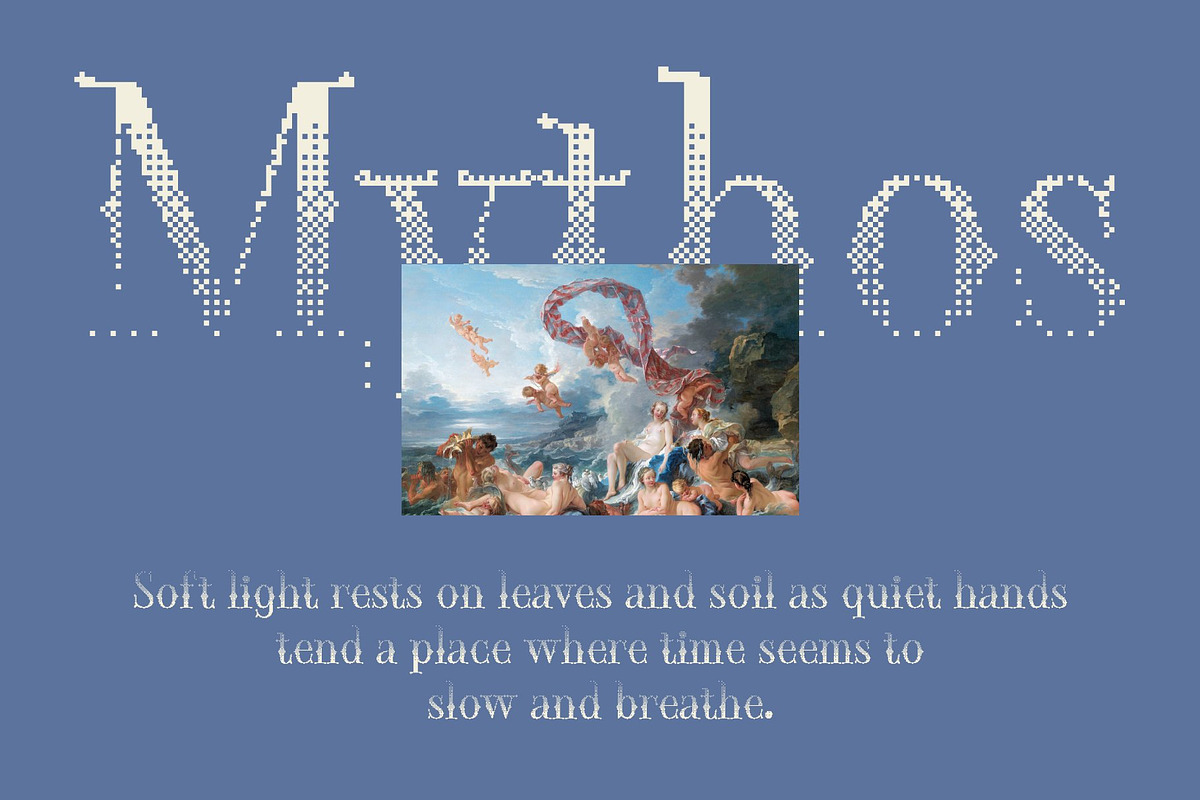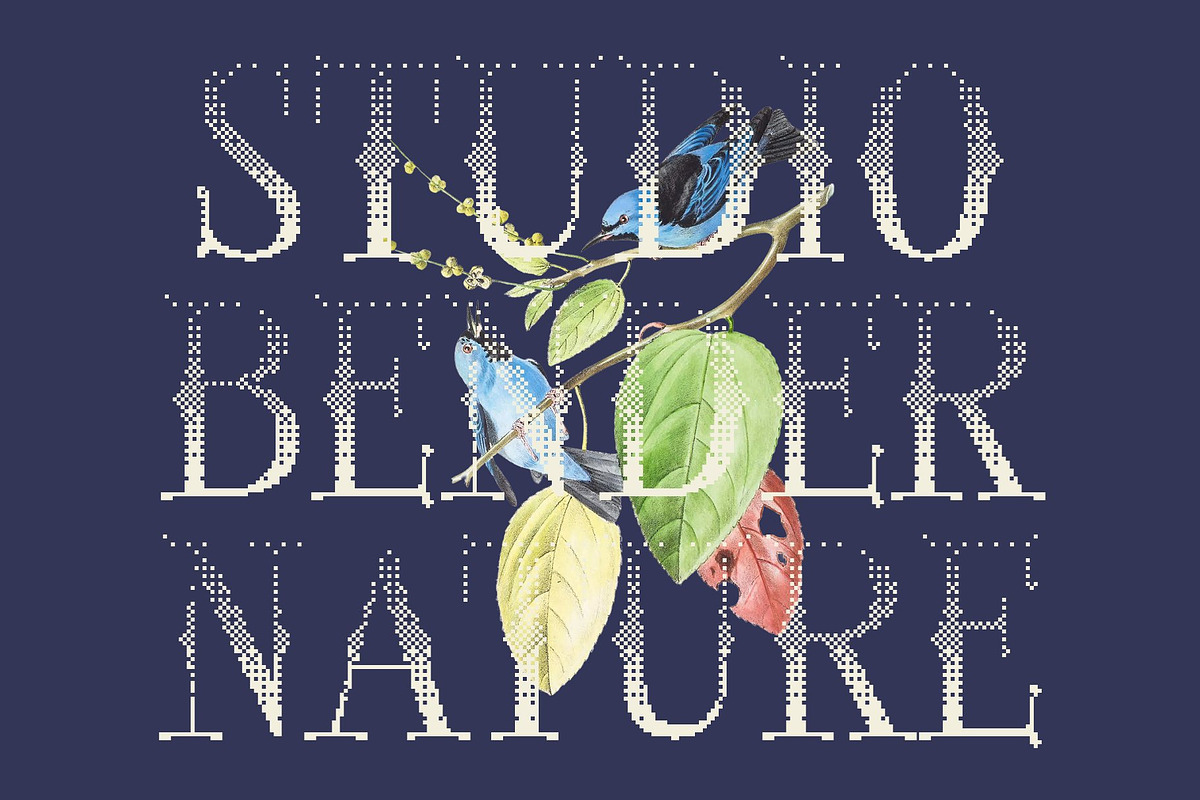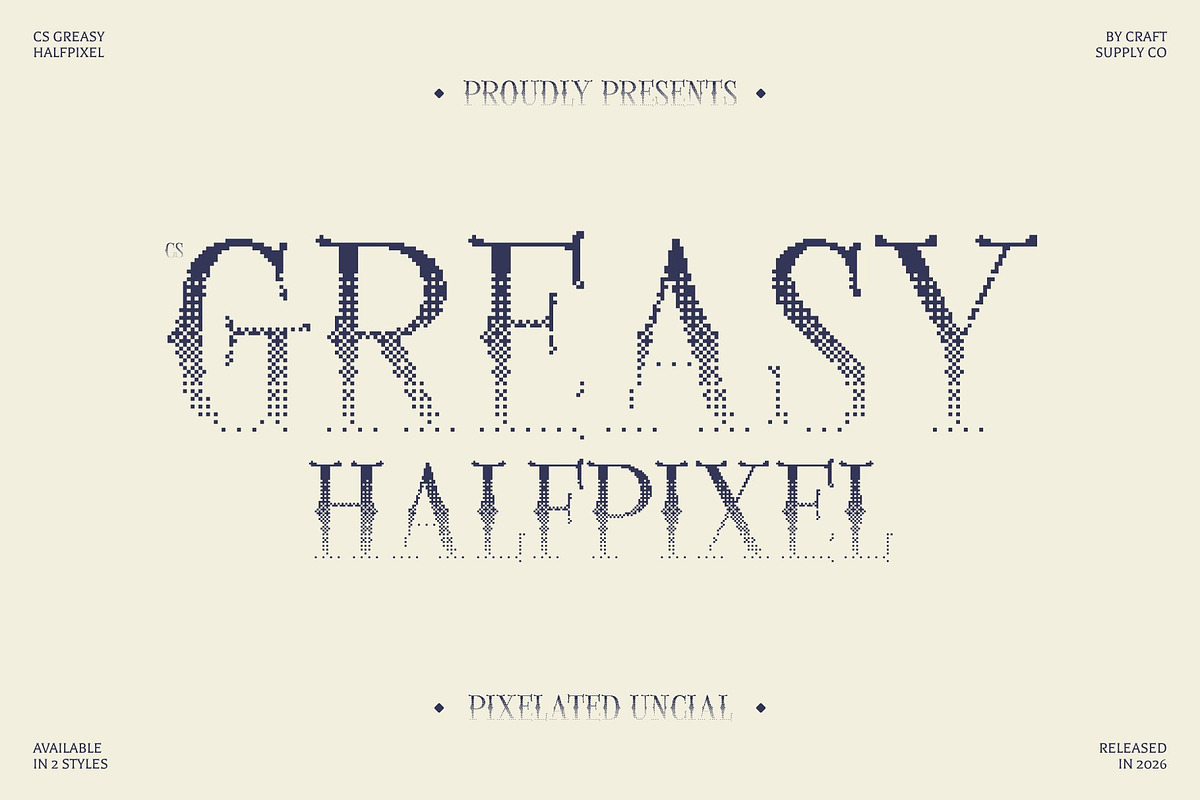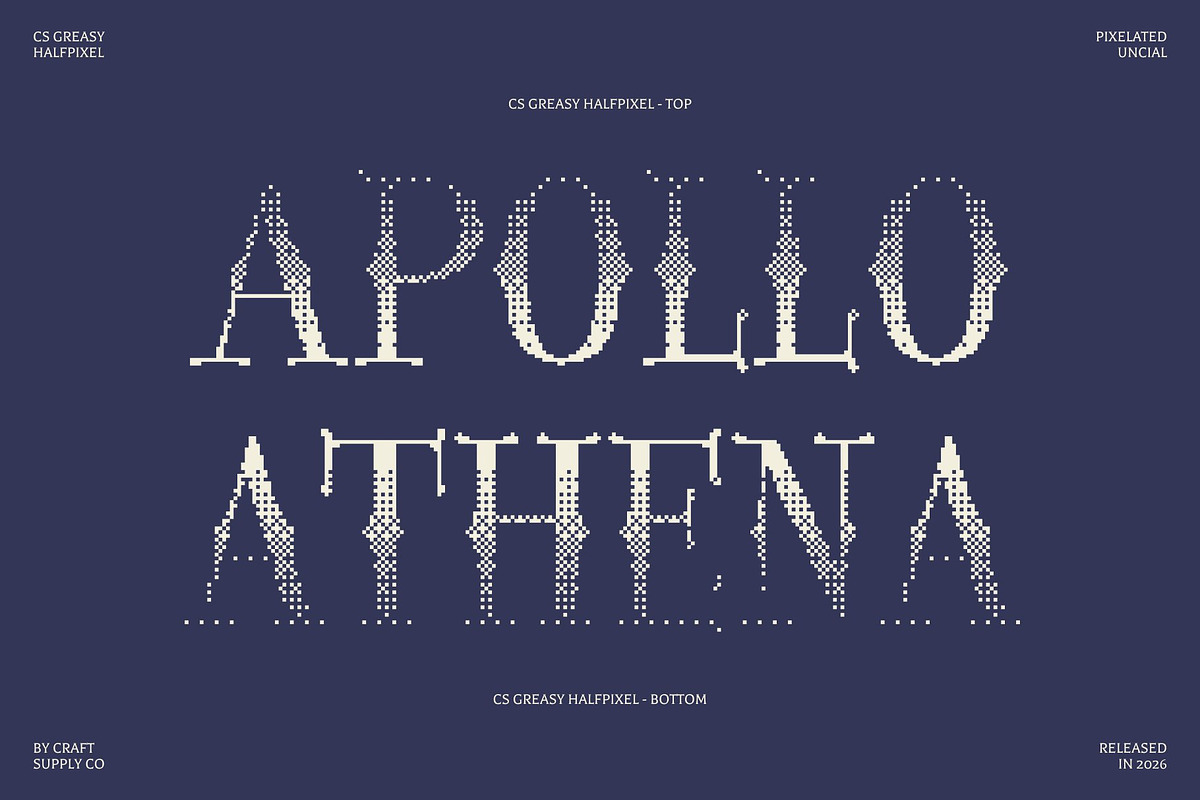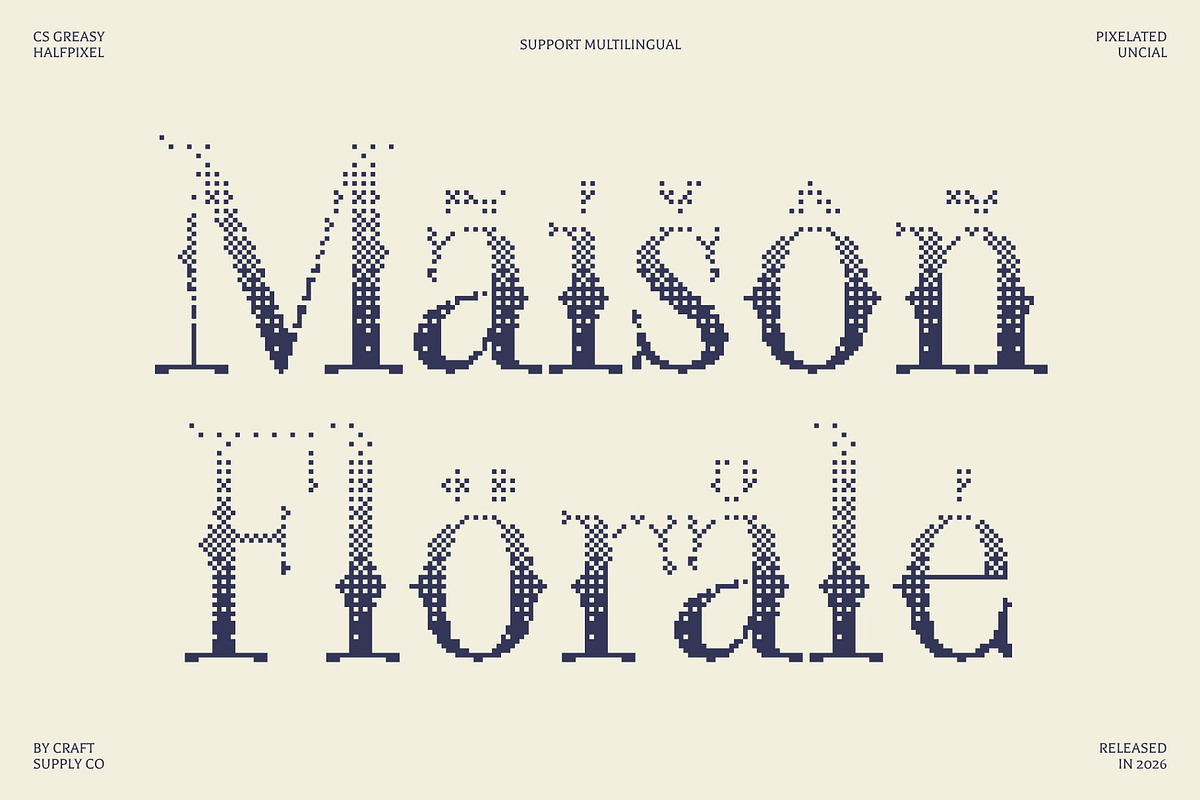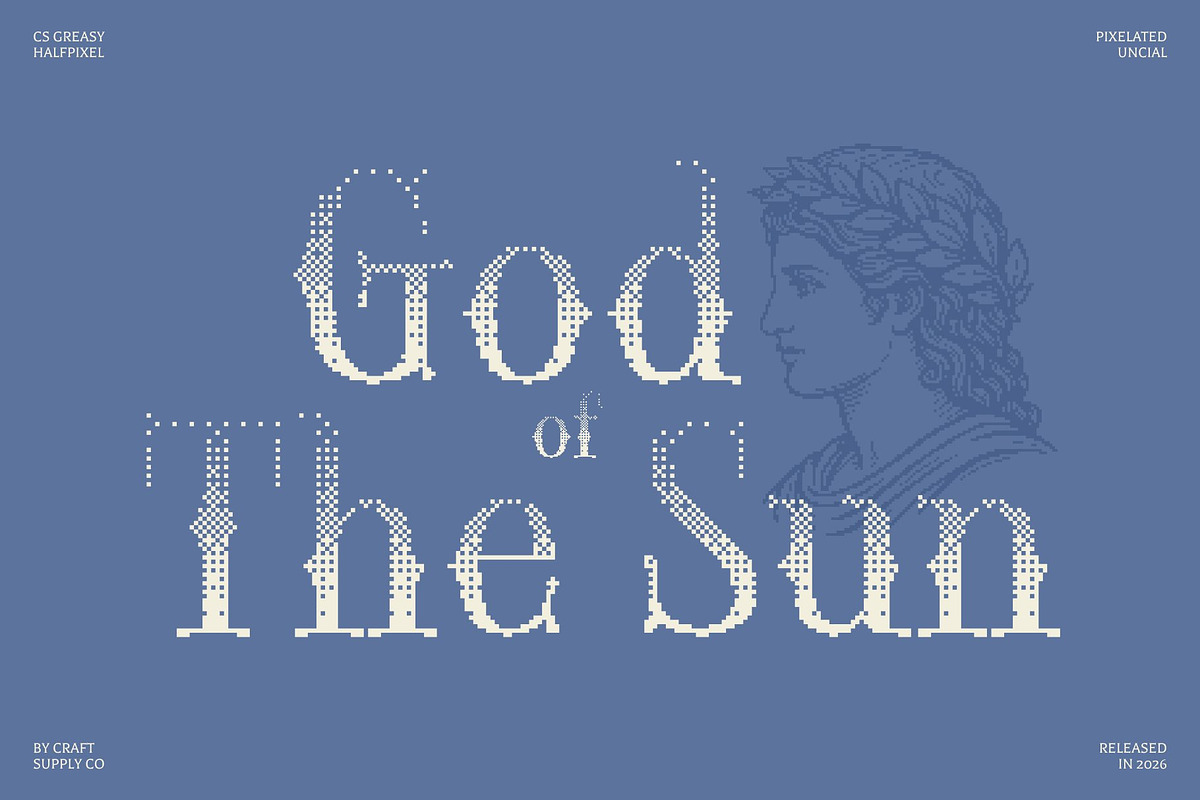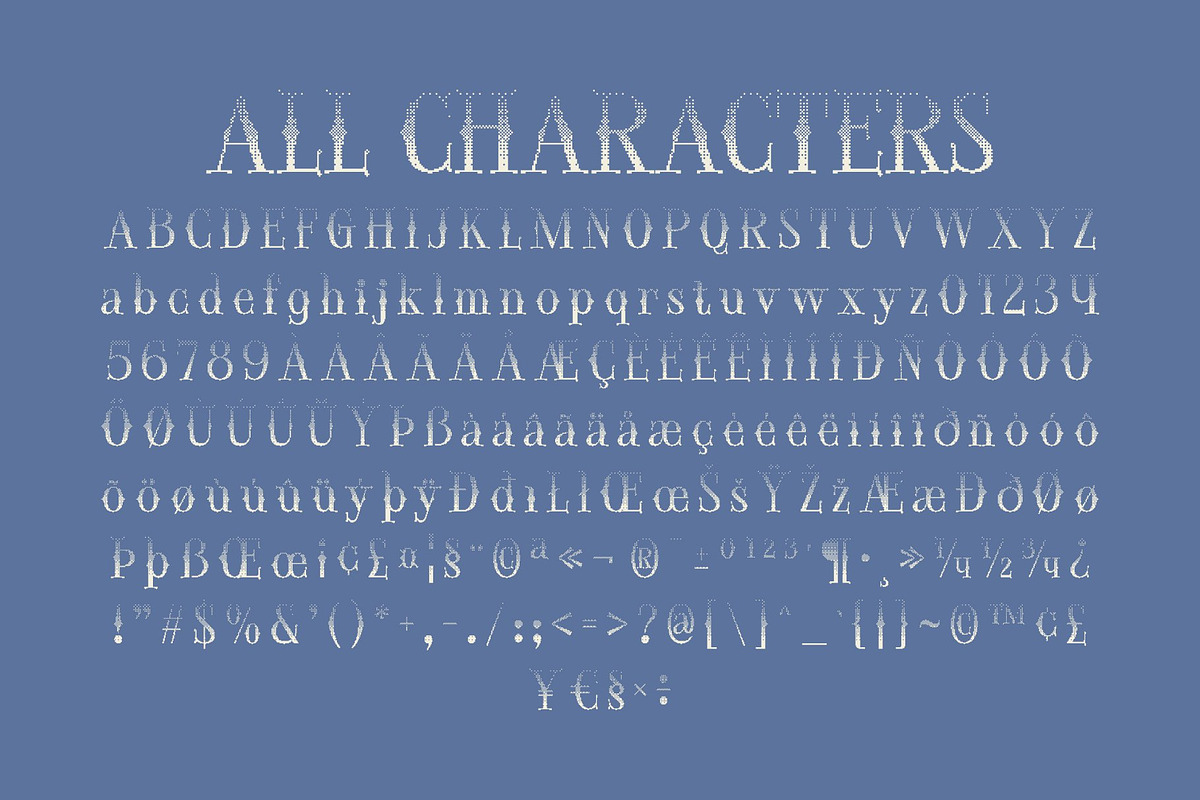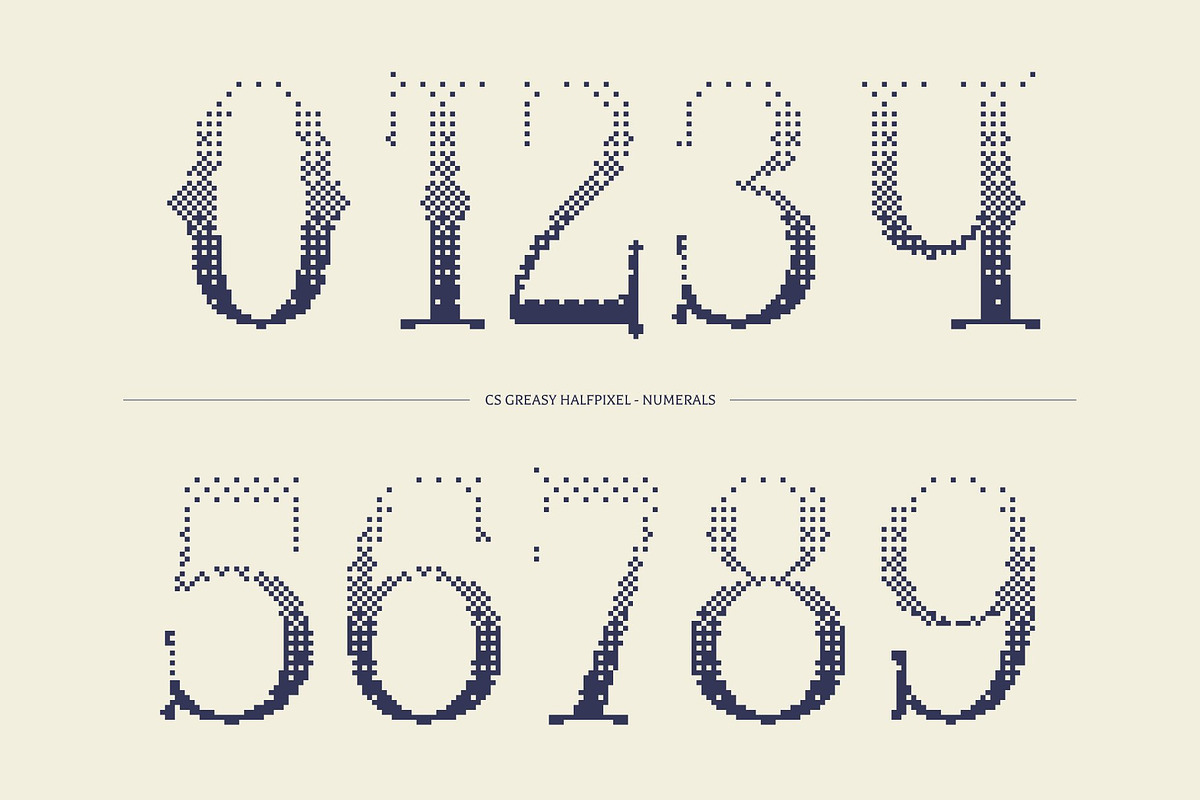
CS Greasy Halfpixel
CS Greasy Halfpixel – Display Serif Font: Where Uncial Heritage Meets Digital Fantasy
Uncial-Inspired Forms with Timeless Elegance This is a classic display serif font that embodies the elegance and timeless beauty of uncial script traditions. Its rounded forms, flowing curves, and decorative serif details evoke the charm of ancient manuscripts and medieval calligraphy, creating a rich visual atmosphere filled with heritage and artistic sophistication.
Halfpixel Effect with Smooth Retro-Digital Style This font delivers a softer and smoother appearance than traditional rigid pixel fonts. Through subtle anti-aliasing techniques, the edges of each letterform gain a gentle blurred finish that preserves a nostalgic digital aesthetic while improving visual fluidity and readability. This creates a unique fusion between classical elegance and retro-tech styling.
Historic Fantasy with Contemporary Digital Flair Blending uncial-inspired serif beauty with pixel-influenced digital refinement,this font offers a typographic identity that feels mystical, imaginative, and futuristic at the same time. Its artistic rhythm makes it perfect for projects that combine historical fantasy themes with modern digital creativity.
Perfect for Fantasy Branding and Experimental Digital Design This font ideal for neomedieval web design, high-concept digital storytelling, pixel-art fantasy branding, game visuals, creative editorials, and atmospheric posters. Its elegant uncial-inspired forms and smooth halfpixel texture make it perfect for logos, interfaces, fantasy titles, and immersive visual identities.
CS Greasy Halfpixel Regular
CS Greasy Halfpixel Italic